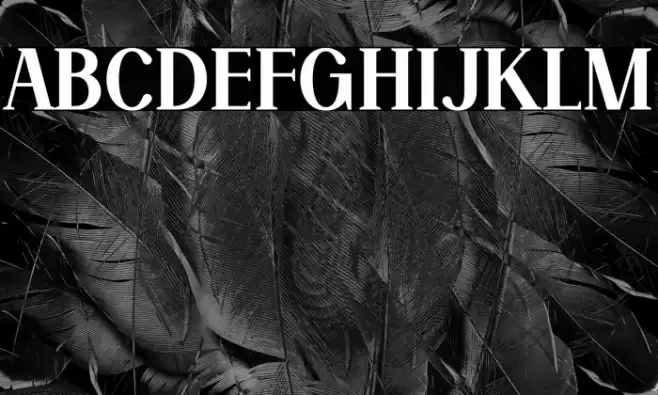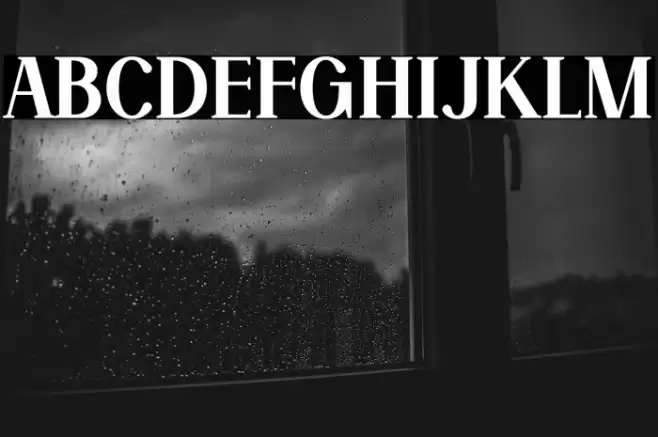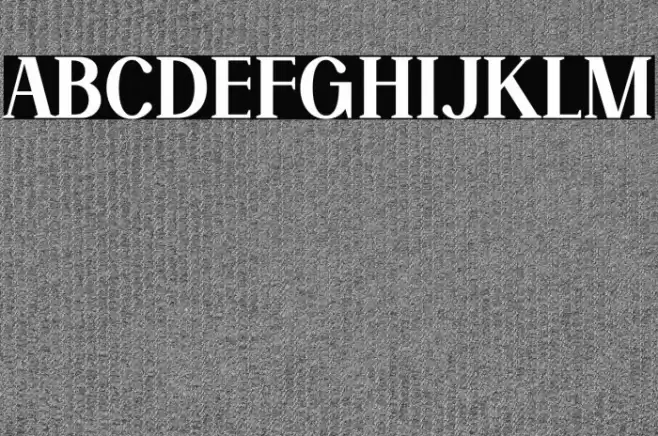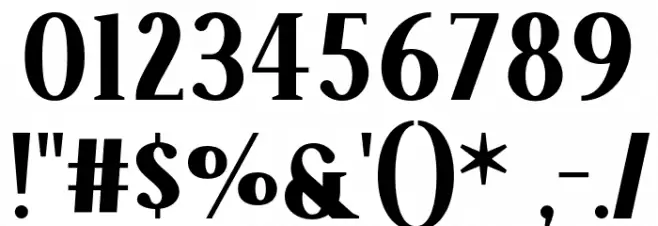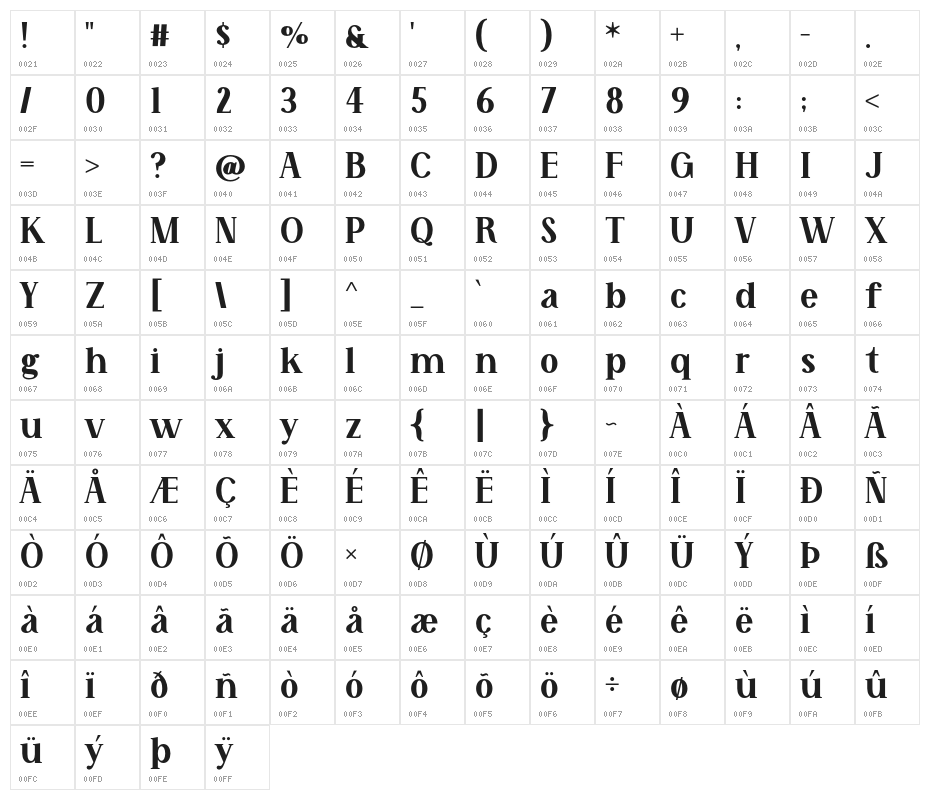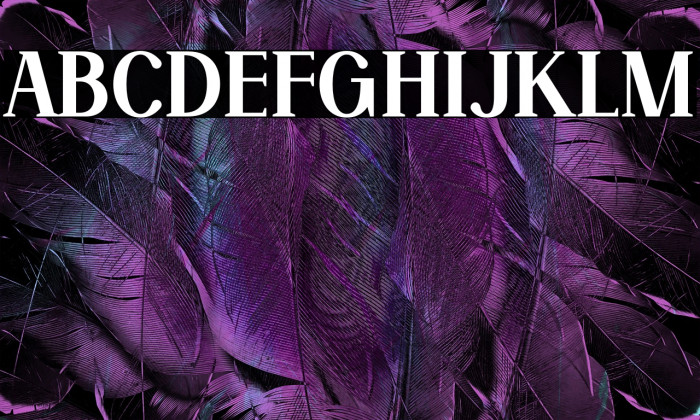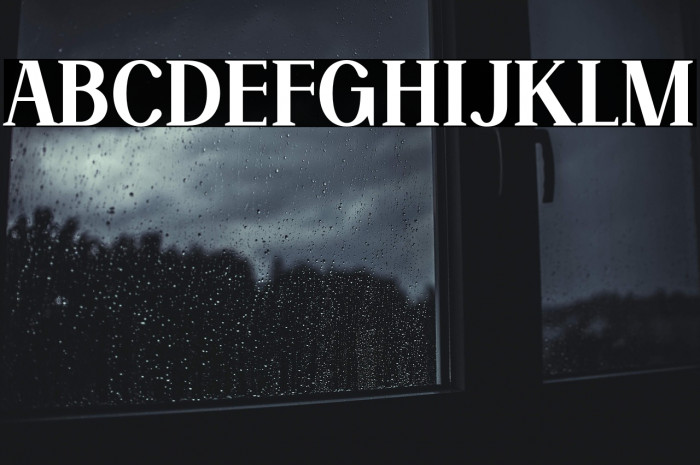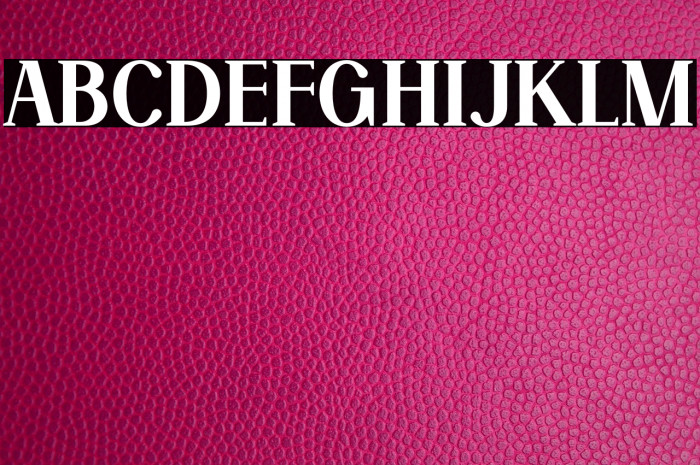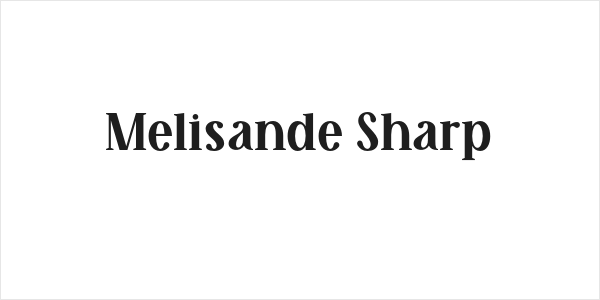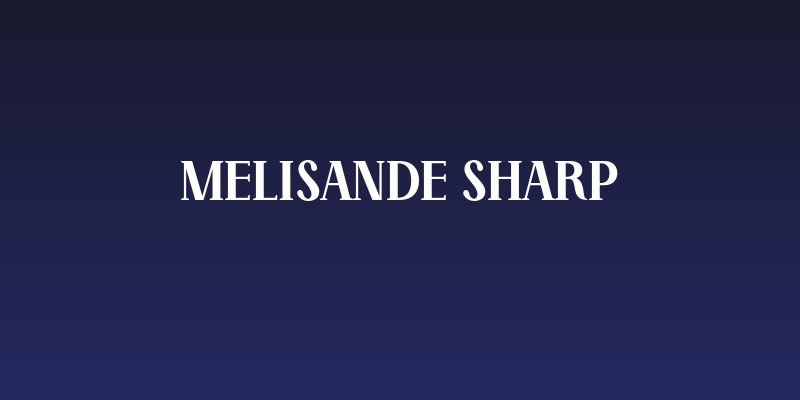
Melisande Sharp Font
Melisande Sharp Description
This font features a bold and striking serif style with high contrast between thick and thin strokes, giving it a dramatic and elegant appearance. The uppercase letters are tall and commanding, while the lowercase letters maintain a consistent and harmonious flow. The numerals are well-proportioned, ensuring readability and balance. Special characters are designed with the same attention to detail, making them stand out while remaining cohesive with the overall design. This font exudes a sense of sophistication and authority, making it suitable for a variety of formal and creative applications.
A bold, high-contrast serif font with elegant and dramatic strokes from Uncategorized fonts.
- Font: Melisande Sharp
- Proposed Projects: Ideal for use in editorial design, book covers, branding, and luxury product packaging.
- Overall Style: Classic
- Use Case: Headlines, Logos, Editorial design